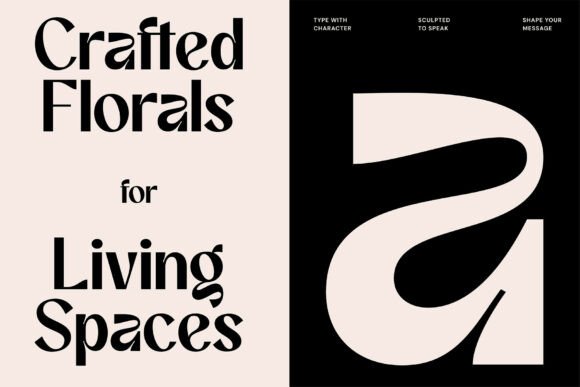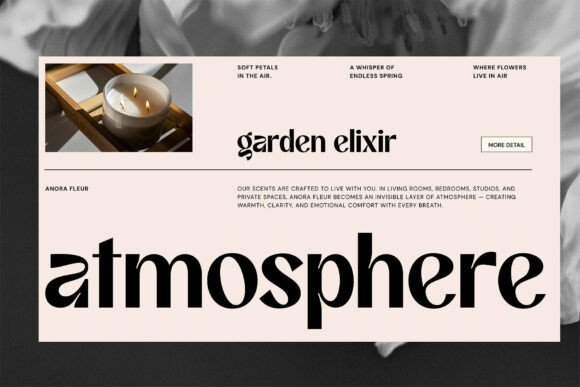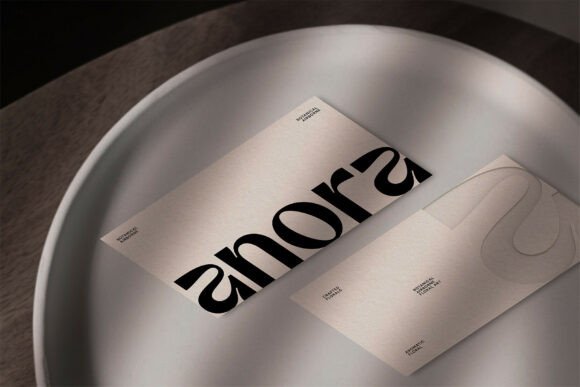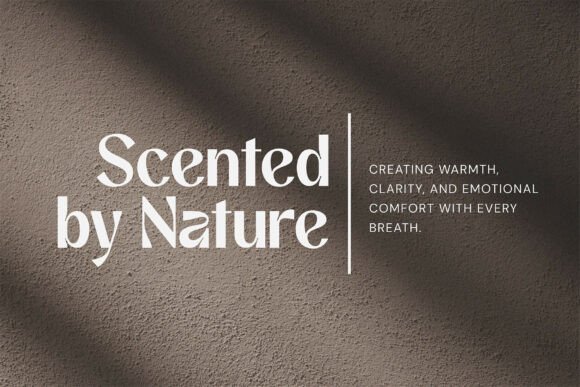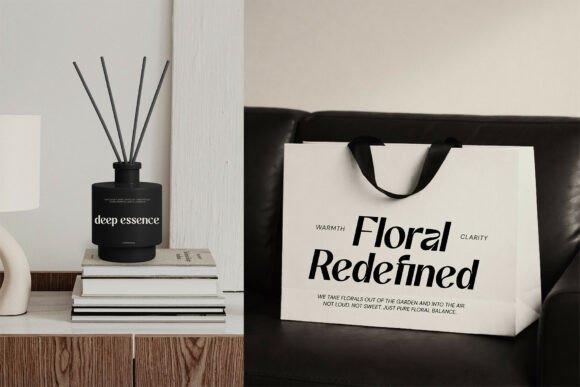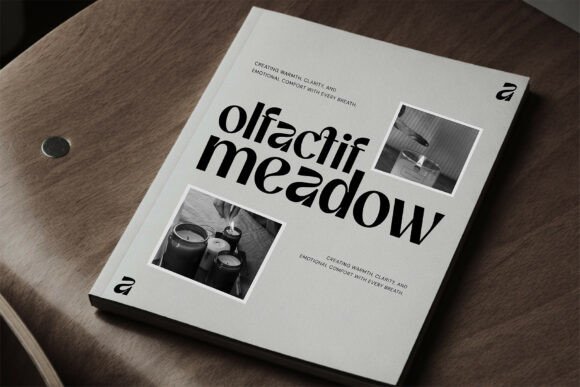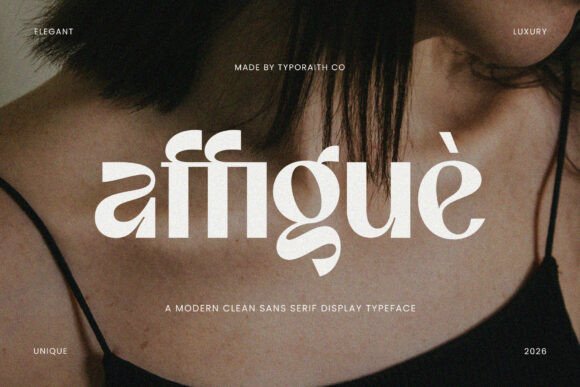
Introducing Affigue Font: Elevate Your Designs with Elegance and Luxury
In the world of typography, a font can make or break a design. For designers and crafters seeking to create a lasting impression, Affigue Font is an exceptional choice. This modern clean sans serif display typeface is designed with an elegant and luxurious character, perfect for projects that demand sophistication. In this article, we’ll explore the features and benefits of Affigue Font, and how it can elevate your designs to new heights.
A Modern Clean Sans Serif Display Typeface
Affigue Font boasts a sleek and contemporary design, characterized by its clean lines, subtle curves, and precise geometry. Its sans serif style ensures a crisp and modern appearance, making it ideal for fashion branding, editorial layouts, luxury logos, posters, magazine covers, beauty products, and modern advertising. The font’s elegant and luxurious character is sure to captivate audiences and leave a lasting impression.
Perfect for Fashion and Luxury Brands
Affigue Font is specifically designed to meet the needs of fashion and luxury brands. Its bold yet soft appearance creates a strong visual identity while maintaining a clean and contemporary feel. This font is perfect for designers looking to create high-end branding, packaging, or advertising materials that exude sophistication and style. Whether you’re working on a luxury fashion brand, a beauty product, or a high-end magazine cover, Affigue Font is an excellent choice.
Key Features of Affigue Font
- Modern clean sans serif design: Affigue Font features a sleek and contemporary design, perfect for modern designs.
- Elegant and luxurious character: The font’s elegant and luxurious character makes it ideal for high-end branding and advertising.
- Bold yet soft appearance: Affigue Font’s bold yet soft appearance creates a strong visual identity while maintaining a clean and contemporary feel.
- Crafted for large sizes: This font is specifically designed to stand out in large sizes, delivering a confident, stylish, and premium impression.
Affigue Font offers numerous benefits for designers and crafters, including:
- Improved brand recognition: With its elegant and luxurious character, Affigue Font can help elevate your brand’s visual identity and recognition.
- Increased design efficiency: This font is designed to work beautifully in a variety of design applications, saving you time and effort.
- Enhanced creativity: Affigue Font’s unique design and versatility make it an excellent choice for creative projects that demand sophistication.
Tips for Using Affigue Font
To get the most out of Affigue Font, consider the following tips:
- Use it for headlines and titles: Affigue Font is specifically designed for large sizes, making it perfect for headlines and titles.
- Pair it with complementary fonts: Experiment with pairing Affigue Font with complementary fonts to create a unique and visually appealing design.
- Experiment with different sizes and colors: Take advantage of Affigue Font’s versatility by experimenting with different sizes and colors.
Affigue Font is an exceptional choice for designers and crafters seeking to create elegant and luxurious designs. Its modern clean sans serif display typeface, elegant and luxurious character, and bold yet soft appearance make it perfect for fashion branding, editorial layouts, luxury logos, posters, magazine covers, beauty products, and modern advertising. With its numerous benefits and versatility, Affigue Font is sure to elevate your designs to new heights.